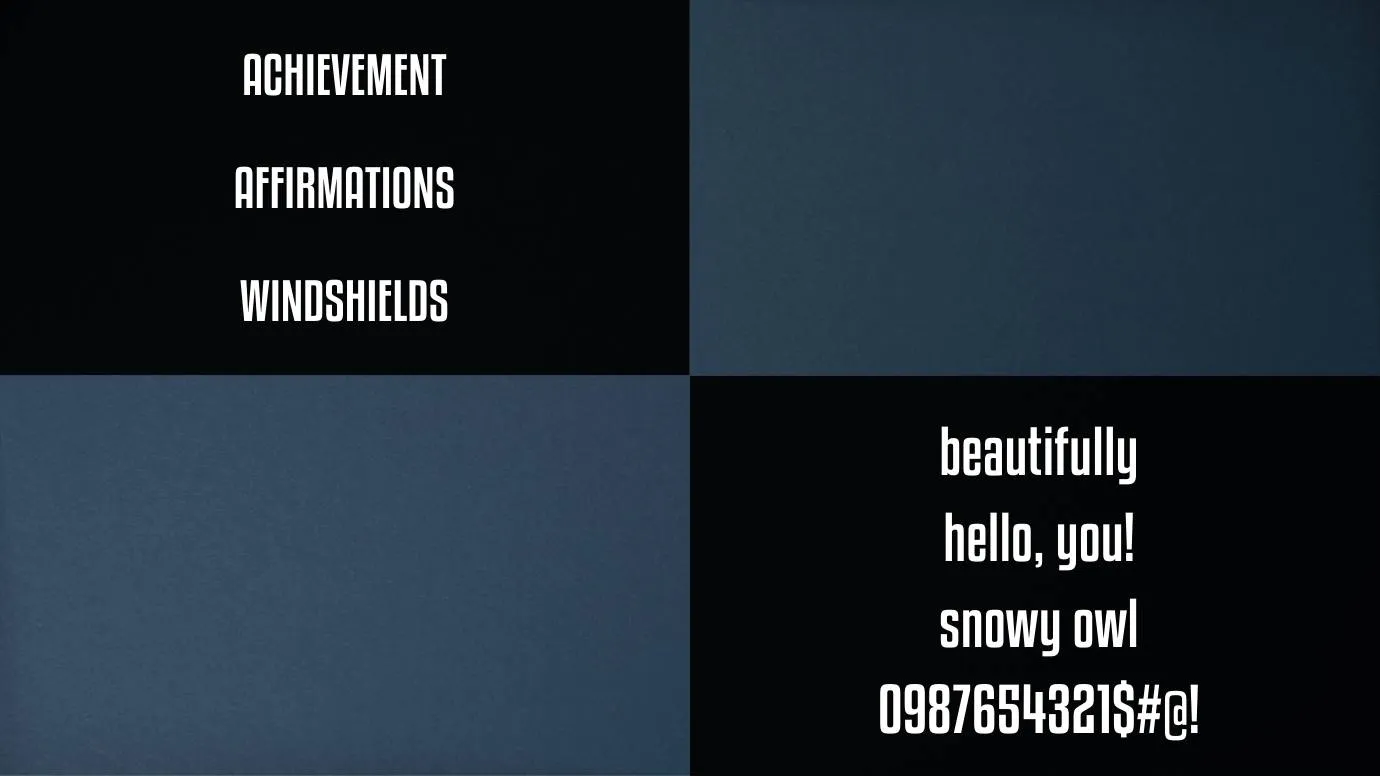
In this post, I shall introduce to you an interesting and attractive typeface. Shark Tank Font is a lovely and stunning typeface. This typeface was inspired by the famous TV series Shark Tank. Shark Tank typeface’s original name is Kenyan Coffee Bold Font.
Shark Tank typeface is available in two different styles Regular and Bold. This typeface is suitable for posters, logos, shop names, invitation cards, product packaging, brochures, magazine covers, fashion designs, book titles, and T-Shirt designs.
Shark Tank typeface has a complete set of characters including upper and lower case alphabets, numbers, special characters, and symbols. This typeface is identical to the Incredibles font. This typeface also supports many different languages.
This attractive and stunning typeface is designed by Japan-based typeface designer Raymond Larabie for the foundry Typodermic Fonts in 2019.
This font style is created with a unique and regular style. This single attractive style is a combination of characteristics, including capital alphabets, small alphabets, punctuations, glyphs, digits, symbols, special characters, and a large number of language support.
| Designer | Raymond Larabie |
| Foundry | Typodermic Fonts |
Is Shark Tank typeface Hand-written style?
No, the Shark Tank typeface is not a handwritten typeface. It is a movie typeface.